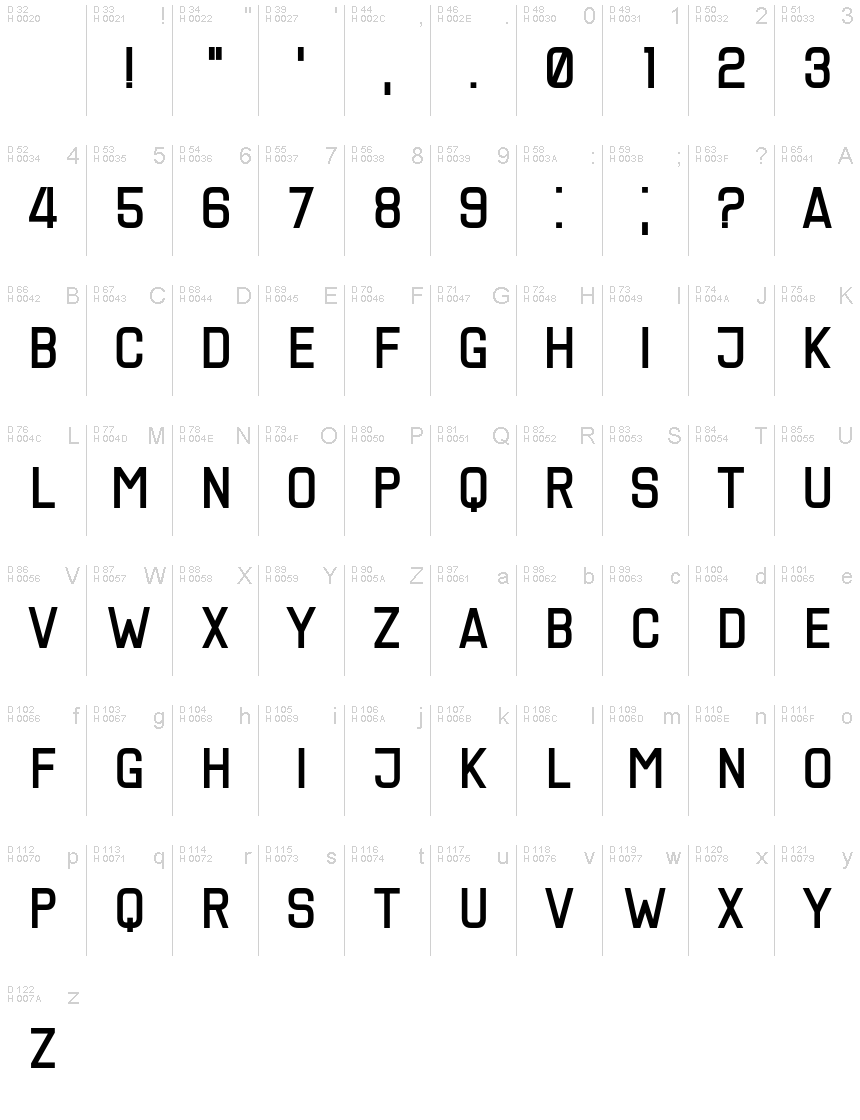
Balken Regular
Balken font is a condensed, sans serif font designed by Vladimir Nikolic. With strong geometric forms and modern aesthetics, the font stands out with its minimalistic yet impactful presence. Balken carries an industrial feel and is highly equipped for contemporary designs through a digital or printed medium.